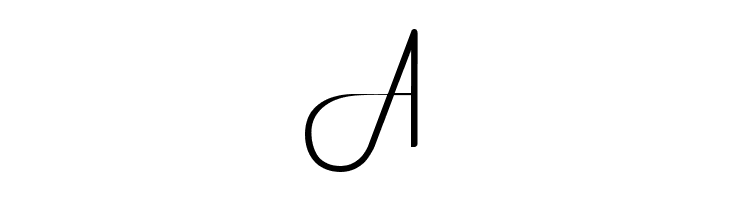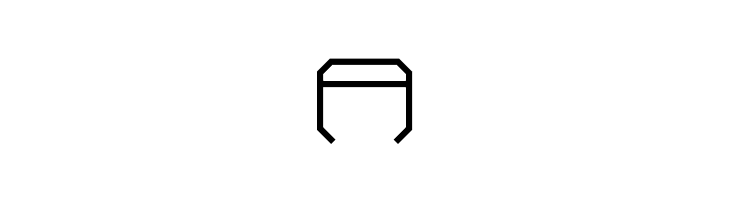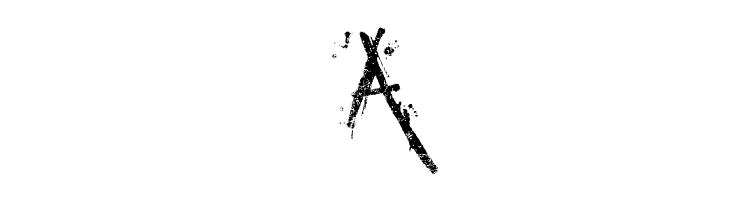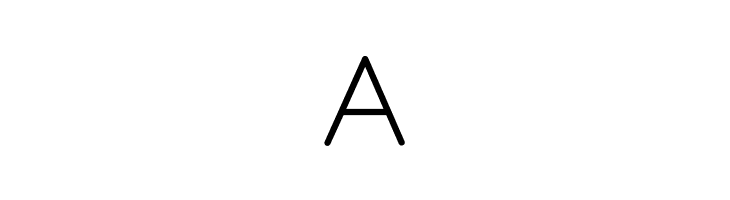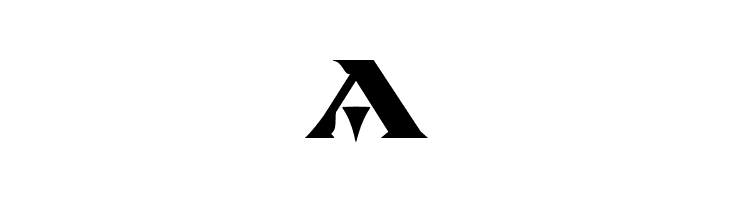
( Fonts by Fictionalhead Design - Dan Meyer - Personal-use only. For commercial use please contact owner. ) A playful, casual handwritten font with thin, slightly uneven strokes. Download 30 Downloads@WebFont
( Fonts by Fictionalhead Design - Dan Meyer - Personal-use only. For commercial use please contact owner. ) A light, handwritten italic font with a modern and elegant style. Download 22 Downloads@WebFont
( Fonts by Fictionalhead Design - Dan Meyer - Personal-use only. For commercial use please contact owner. ) A bold, distressed font with a textured, ink-like appearance. Download 47 Downloads@WebFont
( Fonts by Fictionalhead Design - Dan Meyer - Personal-use only. For commercial use please contact owner. ) A modern, geometric font with medium contrast and a sleek appearance. Download 60 Downloads@WebFont
( Fonts by Fictionalhead Design - Dan Meyer - Personal-use only. For commercial use please contact owner. ) A whimsical, hand-drawn font with playful swirls and curls. Download 31 Downloads@WebFont
( Fonts by Fictionalhead Design - Dan Meyer - Personal-use only. For commercial use please contact owner. ) A playful, casual handwritten font with uneven strokes and an organic flow. Download 30 Downloads@WebFont
( Fonts by Fictionalhead Design - Dan Meyer - Personal-use only. For commercial use please contact owner. ) A grungy, distressed font with splattered ink effects and dynamic strokes. Download 30 Downloads@WebFont
( Fonts by Fictionalhead Design - Dan Meyer - Personal-use only. For commercial use please contact owner. ) A modern, geometric font with clean lines and rounded edges. Download 28 Downloads@WebFont
( Fonts by Fictionalhead Design - Dan Meyer - Personal-use only. For commercial use please contact owner. ) A geometric, futuristic font with angular, interconnected lines. Download 22 Downloads@WebFont
( Fonts by Fictionalhead Design - Dan Meyer - Personal-use only. For commercial use please contact owner. ) A playful, hand-drawn font with a doodle-like, textured style. Download 32 Downloads@WebFont
( Fonts by Fictionalhead Design - Dan Meyer - Personal-use only. For commercial use please contact owner. ) A playful handwritten font with dynamic strokes and a casual style. Download 24 Downloads@WebFont
( Fonts by Fictionalhead Design - Dan Meyer - Personal-use only. For commercial use please contact owner. ) A clean, modern sans-serif font with geometric structure and consistent stroke width. Download 61 Downloads@WebFont
( Fonts by Fictionalhead Design - Dan Meyer - Personal-use only. For commercial use please contact owner. ) A playful, hand-drawn font with a double-line outline and quirky style. Download 26 Downloads@WebFont
( Fonts by Fontry - M.G. Adkins - Personal-use only. For commercial use please contact owner. ) A bold, high-contrast font with ornate uppercase letters and elegant flourishes. Download 34 Downloads@WebFont
( Fonts by Fontry - M.G. Adkins - Personal-use only. For commercial use please contact owner. ) A bold, high-contrast serif font with a classic and authoritative style. Download 70 Downloads@WebFont
( Fonts by niyos - Nur Huda - Personal-use only. For commercial use please contact owner. ) An elegant, flowing script font with decorative flourishes. Download 36 Downloads@WebFont
( Fonts by a Neale Davidson - www.pixelsagas.com. Personal-use only. For commercial use please contact owner. ) A bold, decorative font with intricate, calligraphic letterforms. Download 87 Downloads@WebFont
( Fonts by a Neale Davidson - www.pixelsagas.com. Personal-use only. For commercial use please contact owner. ) A bold, italicized decorative font with a cursive-like, artistic style. Download 71 Downloads@WebFont
( Fonts by TeType Studio - Teddy Hanadi - Personal-use only. For commercial use please contact owner. ) An artistic and elegant font with decorative uppercase and stylish lowercase letters. Download 50 Downloads@WebFont
( Fonts by Hugefonts - Personal-use only. For commercial use please contact owner. ) A fluid and elegant handwritten font with dynamic letterforms. Download 28 Downloads@WebFont
( Fonts by Hugefonts - Personal-use only. For commercial use please contact owner. ) A fluid and elegant script font with dynamic strokes and seamless connections. Download 35 Downloads@WebFont
( Fonts by EssentialsStudio - Personal-use only. For commercial use please contact owner. ) A playful and elegant handwritten font with fluid, connected letterforms. Download 392 Downloads@WebFont
( Fonts by Farul Arjianto - creativemarket.com/typefar - Personal-use only. For commercial use please contact owner. ) A lively handwritten font with fluid, organic strokes and a playful elegance. Download 211 Downloads@WebFont
( Fonts by www.peter-wiegel.de. Personal-use only. For commercial use please contact owner. ) A modern, geometric sans-serif font with clean lines and uniform stroke widths. Download 2443 Downloads@WebFont
( Fonts by www.peter-wiegel.de. Personal-use only. For commercial use please contact owner. ) A modern, geometric sans-serif font with uniform strokes and clear characters. Download 1123 Downloads@WebFont
( Fonts by Peter Wiegel - www.peter-wiegel.de - Personal-use only. For commercial use please contact owner. ) A modern, geometric sans-serif font with clean lines and balanced proportions. Download 46 Downloads@WebFont